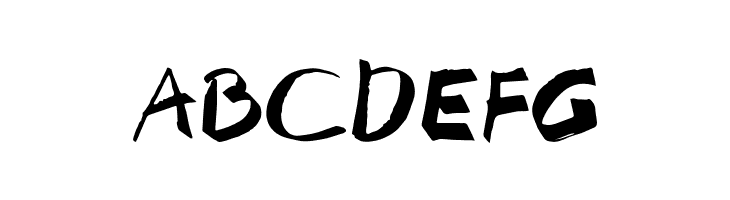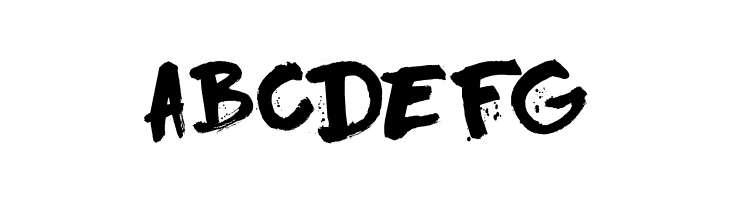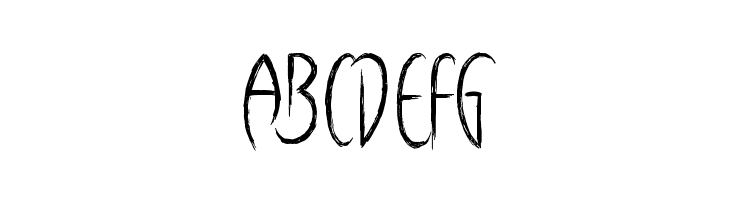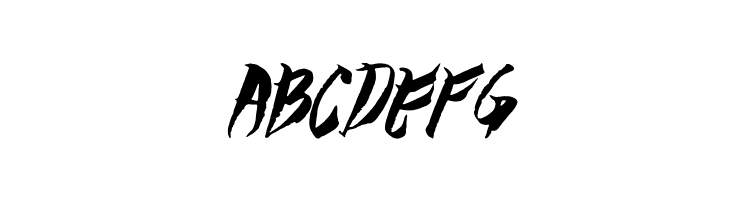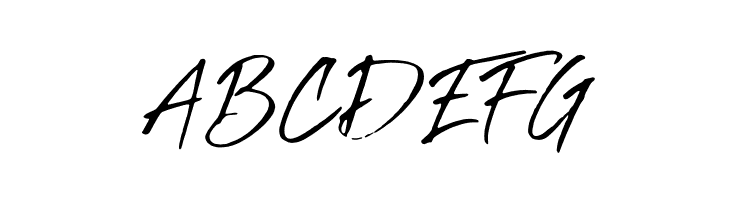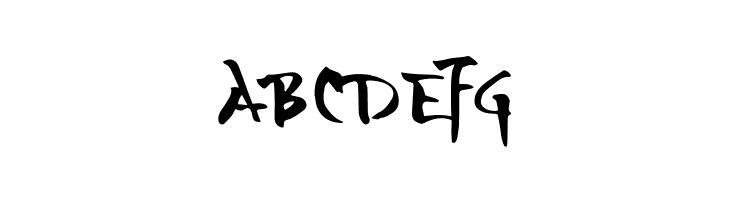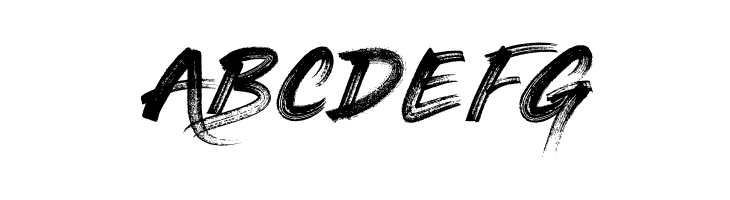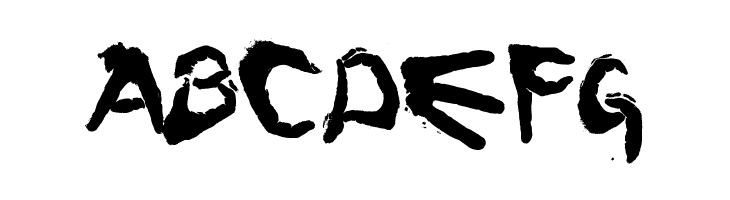
A bold, expressive font with brush-like strokes and dynamic forms.
A dynamic, expressive handwritten font with varied stroke thickness.
A dynamic, expressive handwritten font with fluid strokes.
A bold, expressive brush script font with dynamic and artistic flair.
A bold, expressive font with brush-like strokes and a raw, artistic feel.
A bold, brush-style font with expressive, dynamic strokes.
A bold, brush-style font with an energetic and rebellious vibe.
A dynamic and energetic script font with expressive strokes and lively character.
A bold, brush-stroke font with dynamic curves and a hand-drawn appearance.
A bold, expressive font with an ink-splatter, brush-stroke style.
A bold, brush-style font with expressive, hand-painted strokes.
A diverse collection of decorative and expressive script fonts with unique flair.
A bold, hand-painted style font with expressive, uneven edges.
A bold, expressive hand-drawn font with dynamic, irregular characters.
A bold, expressive brush script font with dynamic strokes.
A dynamic, cursive script font with medium contrast and expressive strokes.
A dynamic, brush-like font with expressive, hand-drawn strokes.
A bold, brush-stroke font with dynamic and artistic flair.
A bold, expressive font with brush-like strokes and a hand-drawn appearance.
An artistic, brush-stroke style font with a dynamic and expressive design.
A bold, expressive handwritten font with dynamic strokes and irregular forms.
A dynamic, brush-stroke font with an artistic and expressive style.
A bold, angular, and dynamic font with a hand-drawn, expressive style.
A bold, expressive font with a hand-painted, dynamic style.
A bold, brushstroke-inspired font with an artistic and expressive style.
A bold, hand-painted style font with expressive, uneven strokes.
A bold, brushstroke font with a dynamic and expressive style.
A bold, brush-stroke style font with an expressive and artistic flair.